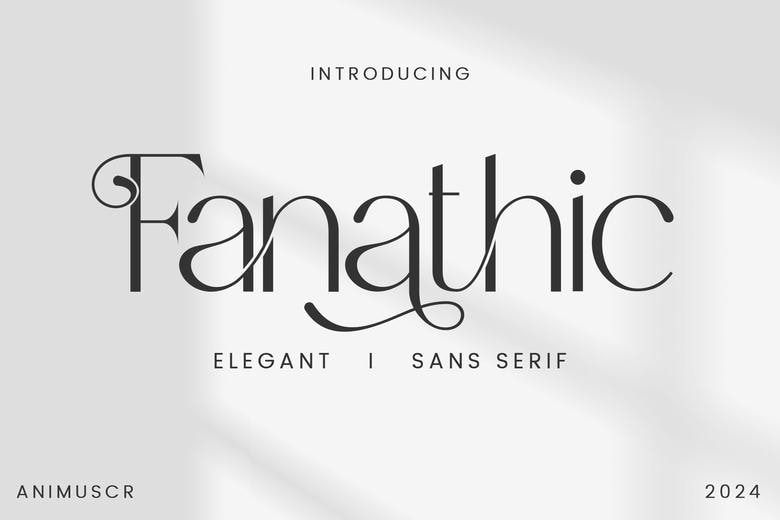
Fanathic Font
Fanathic is an elegant and sophisticated “elegant sans serif” font that perfectly blends minimalist structure with decorative flair. The typeface has clear and high-contrast letterforms with thin strokes and open counters.
Its most striking characteristic is the use of fluid, calligraphic-style swashes and ligatures that weave through the characters that make the text look rhythmic and customized. This font is a top choice for high-end boutique branding, luxury fashion editorial titles, modern wedding stationery and high-end lifestyle marketing.
Fanathic Sans Serif Font